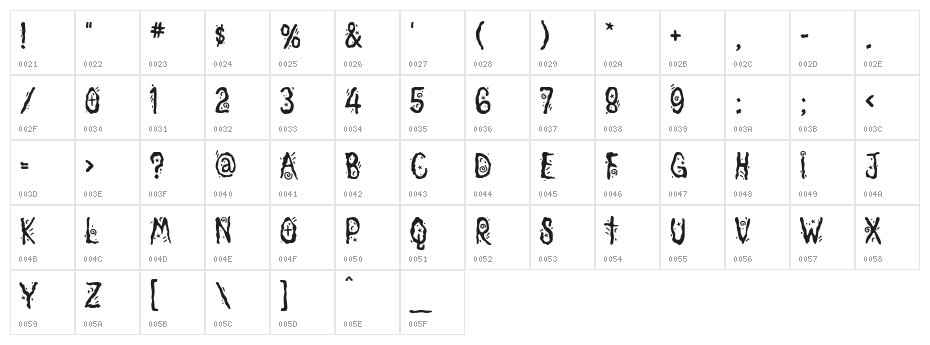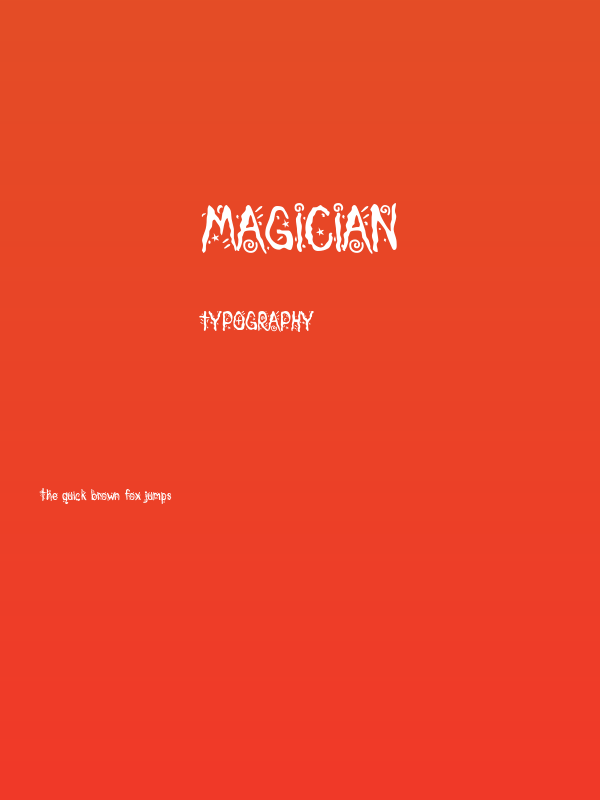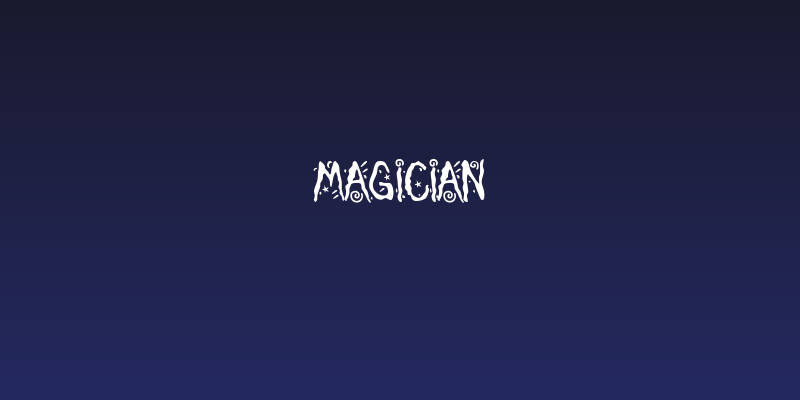
Magician Font
Magician Description
This font is a whimsical and playful typeface that incorporates magical elements such as stars, swirls, and dots within the letterforms. Each character has a unique, hand-drawn appearance, giving it a lively and enchanting feel. The uppercase and lowercase letters maintain a consistent style, with exaggerated curves and decorative accents that evoke a sense of wonder and fantasy. The numbers and special characters follow the same enchanting theme, making this font ideal for creative and imaginative projects. Its distinctive style captures attention and adds a touch of magic to any design.
| Proposed Projects | Ideal for fantasy-themed posters, children's book covers, party invitations, and magical event branding. |